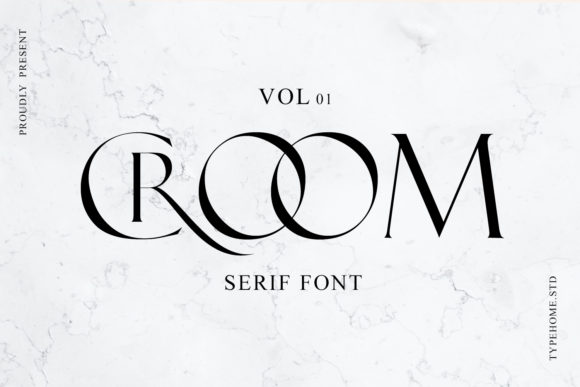
Croom Serif Font: A Calm Choice for Editorial Design
There is a specific kind of quiet panic that sets in when you are staring at a blank canvas for a new lifestyle blog header. You have the photography ready—soft natural light, textured linens, a cup of coffee steaming on a wooden table—but the typography feels disconnected. The sans serif options feel too corporate, and the available script fonts are too whimsical to carry the weight of the brand identity. This was exactly where I found myself last week while redesigning the cover layout for a digital wedding guide. I needed a typeface that felt established yet approachable, classic but not dusty. That is when I introduced Croom into the workflow.
Croom is a classic and elegant serif font that occupies a very specific and useful space in modern typography. It is not too thin to disappear on a mobile screen, and it is not so thick that it feels heavy-handed or aggressive. Instead, it offers a balanced and varied stroke contrast that immediately elevates the mood of a project. As a designer who spends most of their time arranging words for readability and impact, finding a font that naturally enhances the beauty of a layout without demanding all the attention is a rare victory.
The Visual Rhythm of a True Serif
When you load Croom into your design software, the first thing you notice is its rhythm. Many serif fonts today lean heavily into high-contrast Didone styles, which can be stunning for fashion magazines but often struggle with legibility in smaller sizes or on lower-resolution screens. Croom takes a different path. It maintains the traditional structure of a serif font—the feet, the brackets, the varying stroke widths—but executes them with a moderate contrast that feels incredibly stable.
This stability is crucial for editorial design. Whether you are building a recipe ebook or a coaching workbook, the text needs to invite the reader in, not shout at them. The curves in Croom are gentle, avoiding sharp angles that might feel cold or industrial. There is a humanist quality to the letterforms that suggests warmth and reliability. For a publisher creating a long-form article or a chapter opener, this visual character sets a tone of trust before the reader even processes the first sentence.
Practical Applications in Content Layouts
In my recent project, I tested Croom across several different elements of the publication to see how versatile it truly was. Here is how it performed in real-world scenarios:
Readability and Screen Performance
A common concern with serif fonts in the digital age is how they render on various devices. Will the fine lines vanish on a smartphone? Will the spacing feel cramped on a tablet? During the testing phase for the wedding guide, I reviewed the layouts on multiple devices. Croom held up remarkably well. Its "not too thin" design philosophy pays off here. The strokes have enough weight to maintain integrity on retina displays and standard screens alike.
However, it is important to be realistic about where this font belongs. While Croom is excellent for titles, subtitles, and short paragraphs, it may not be the ideal choice for dense body copy in long-form articles if your audience includes readers with visual impairments or if the text size must remain very small. For extended reading passages, I would recommend pairing Croom with a highly legible sans serif font or a more neutral serif designed specifically for micro-typography. This creates a dynamic hierarchy where Croom acts as the voice of authority and style, while the body font handles the heavy lifting of information delivery.
Strategic Font Pairing for Brand Identity
The true power of a premium font like Croom is unlocked when you pair it correctly. Because it has such a distinct, classic personality, it benefits from a companion that steps back and lets it shine.
For a modern web design project, try pairing Croom with a clean, geometric sans serif font for navigation menus and captions. This contrast between the traditional elegance of the serif and the modern simplicity of the sans serif creates a timeless look that works well for luxury brands, consultants, and lifestyle creators. Alternatively, if you are designing a romantic invitation or a boutique product label, pairing Croom with a delicate script font for accents can add a layer of sophistication without becoming cluttered.
Remember that consistency is key to brand identity. Once you establish that Croom is your go-to for headlines and major statements, stick with it across your social media graphics, packaging design, and website banners. This repetition builds recognition and makes your content feel cohesive and professional.
Final Considerations for Commercial Use
Before finalizing any project, always check the specific license included with the font file. If you are creating a digital product for sale, such as an ebook template, a course PDF, or a printable seller kit, you need to ensure you have the appropriate commercial font license. Additionally, verify the included styles. Does the family offer bold weights for emphasis? Are there ligatures or alternates that can add a custom touch to logo design or monograms? Checking these details early prevents headaches during the export phase.